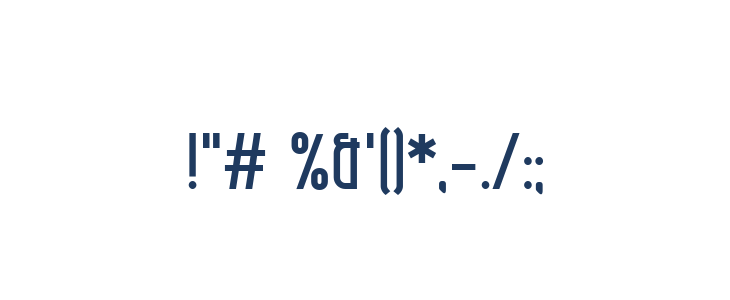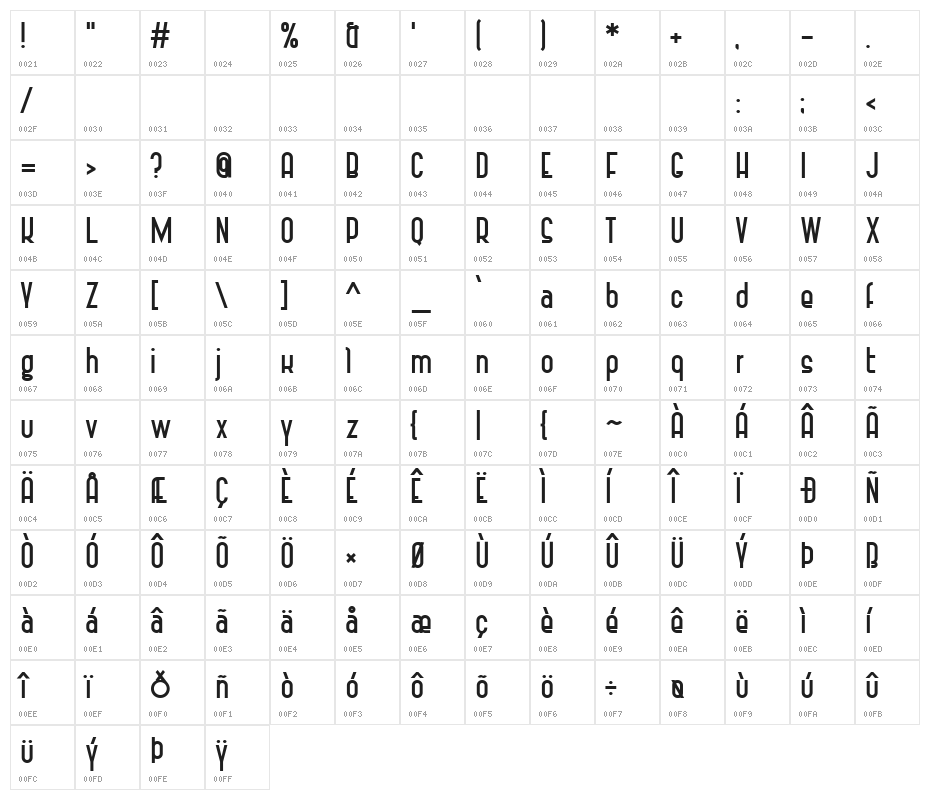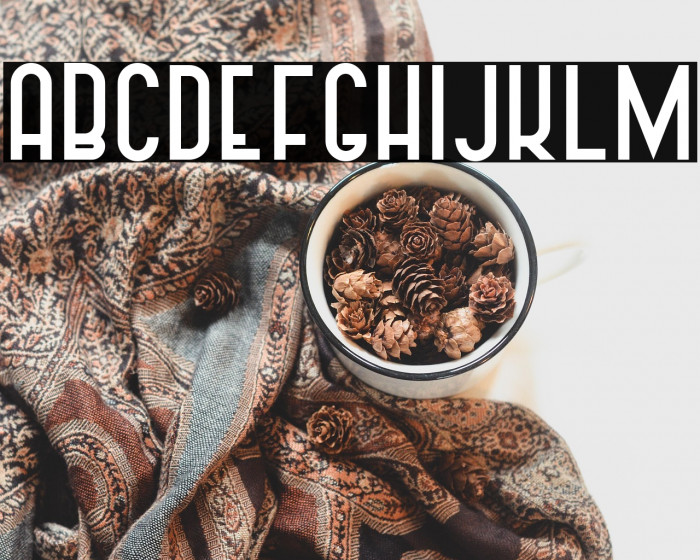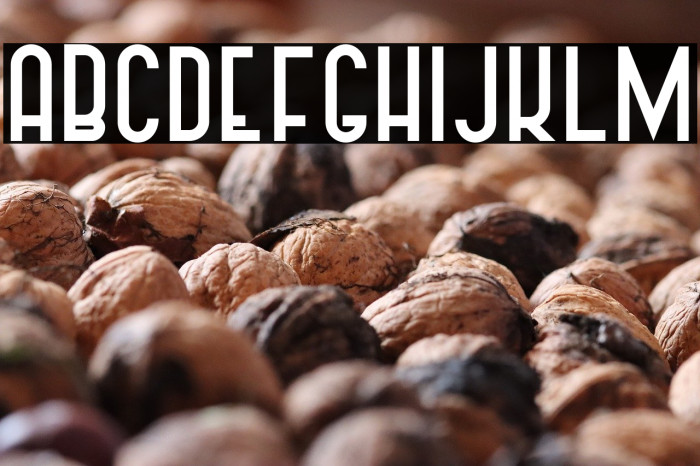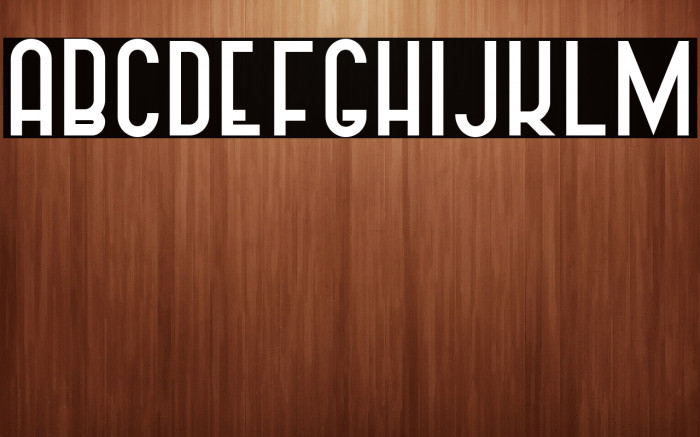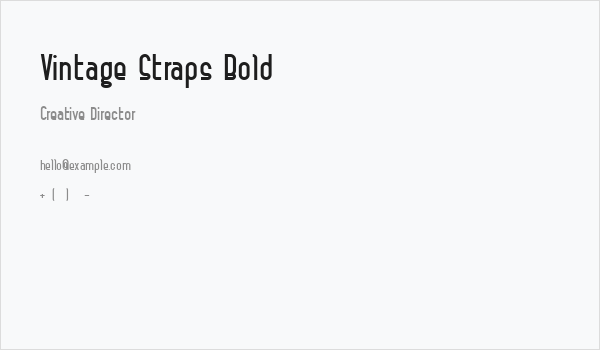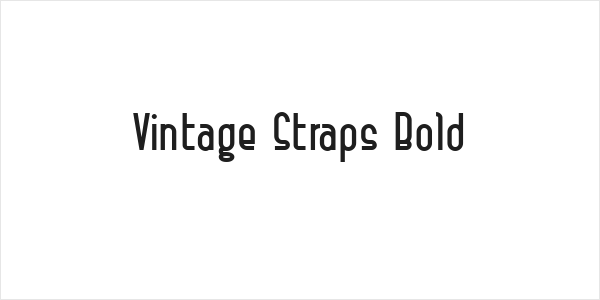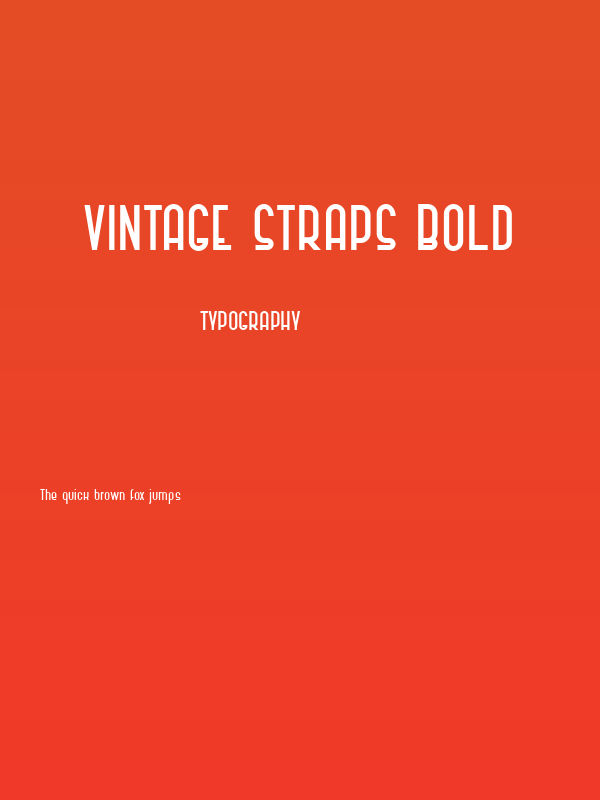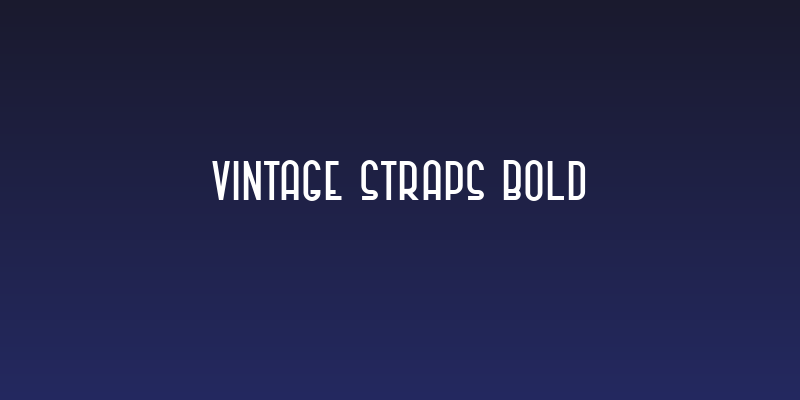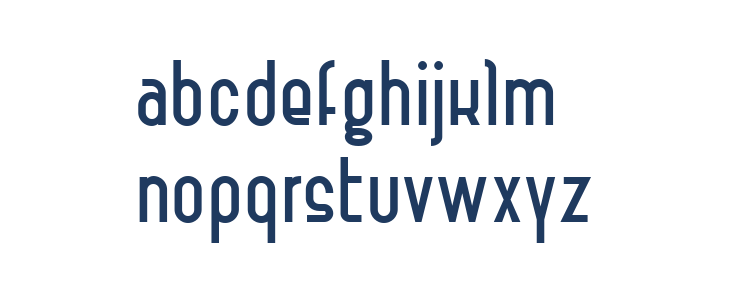
Vintage Straps Bold Font
Vintage Straps Bold Description
This font features a bold, geometric design with a vintage flair. The uppercase letters are tall and narrow, with a consistent stroke width that gives a clean and structured appearance. The lowercase letters maintain the same geometric style, with rounded edges that soften the overall look. The numerals are clear and legible, matching the style of the alphabet. Special characters are included, offering versatility for various design needs. The font's boldness and unique character make it suitable for eye-catching headlines and branding projects.
| Proposed Projects | Perfect for vintage-themed posters, branding, logos, and editorial design. |